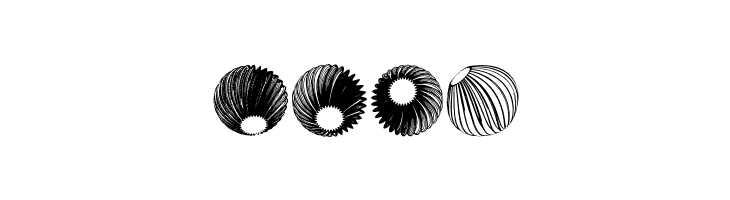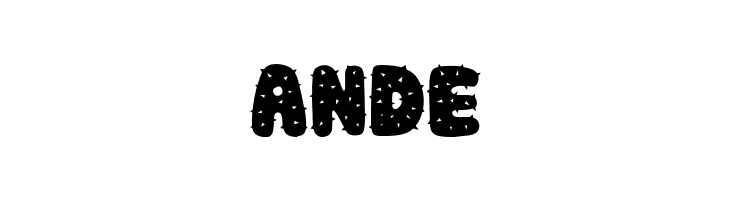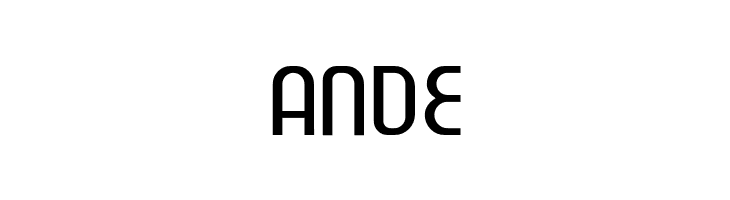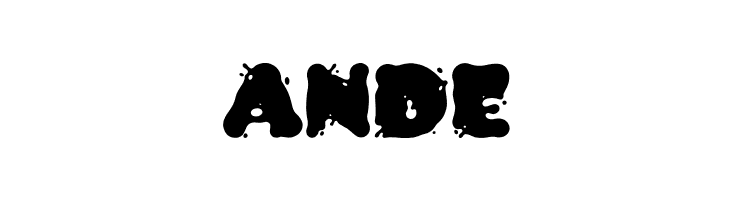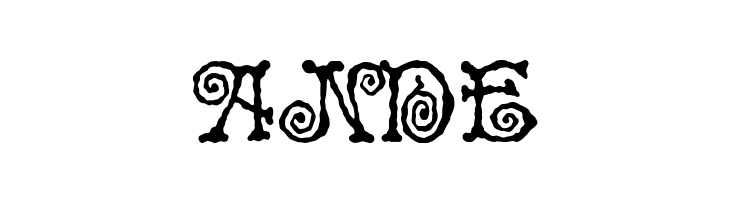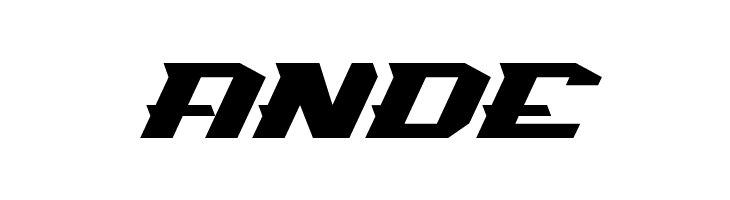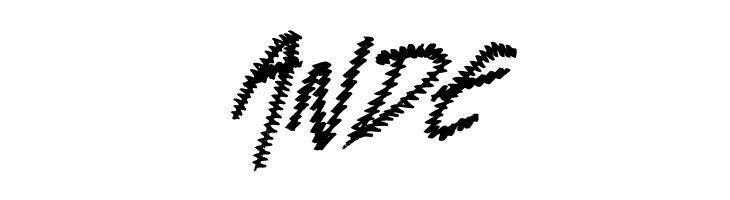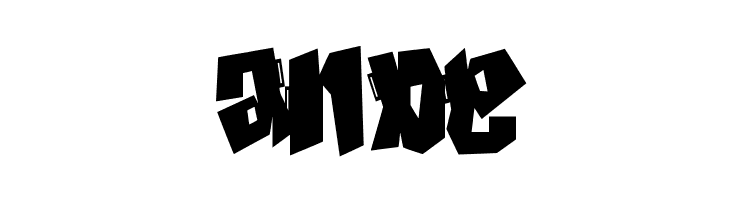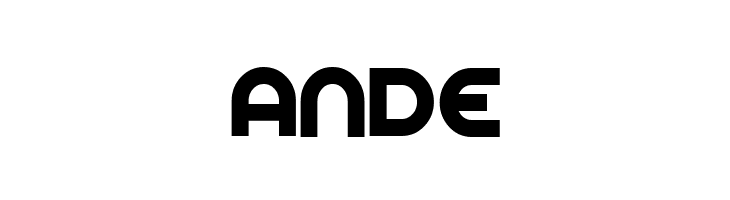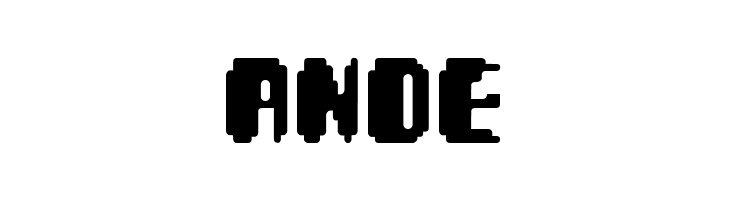
A bold, angular font with sharp, spiky edges for a dynamic and intense look.
A jagged, edgy font with sharp, irregular strokes and a distressed appearance.
A bold, spiky, and playful font with a textured appearance.
A bold, spiky, and playful decorative font with a unique textured appearance.
A bold, spiky, and playful font with a textured appearance.
A bold, edgy graffiti-style font with sharp, angular shapes.
A bold, spiky decorative font with a playful, cactus-like design.
A bold, angular font with spiky, geometric designs for a dynamic look.
A bold, brush-stroke font with spiky, dynamic characters.
A playful, hand-drawn font with tall, narrow letters and a whimsical style.
A playful, bold font with an ink-splatter design, perfect for creative projects.
A bold, 3D outlined font with a modern and playful aesthetic.
A decorative font with a swirling, spiral pattern for a dynamic and textured look.
Bold, angular font with a distressed texture and geometric influence.
A playful, hand-drawn font with irregular strokes and a whimsical style.
A bold, angular font with a gothic-inspired, modern aesthetic.
A whimsical and playful font with curly, decorative elements.
A bold, playful font with a swirling, dynamic design.
A bold, hand-painted style font with an expressive and dynamic appearance.
A playful, rounded font with a bold and modern style.
A modern, geometric font with clean lines and rounded edges.
A bold, brush-like font with high contrast and a dynamic, artistic style.
A pixelated, retro-style font with a digital, tech-inspired aesthetic.
A bold, jagged, and energetic font with a modern handwritten style.
An ornate and decorative font with intricate spirals and flourishes.
Abstract 3D spiral objects form each character in a decorative style.